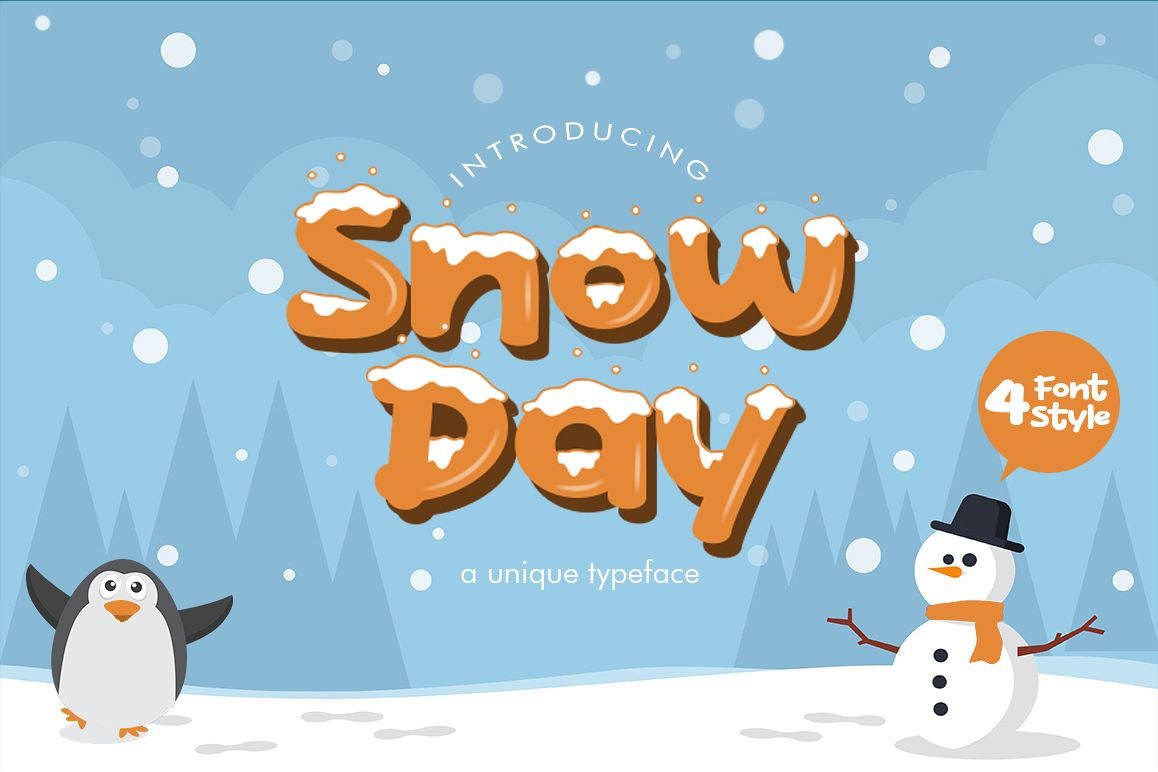
Snow Day font with snow & winter theme for your fun project. Snow Day font has 4 different styles, regular, clean, alternative 1 and alternative 2. Snow Day font suitable for logo, branding, greeting card, poster and any design that you create.